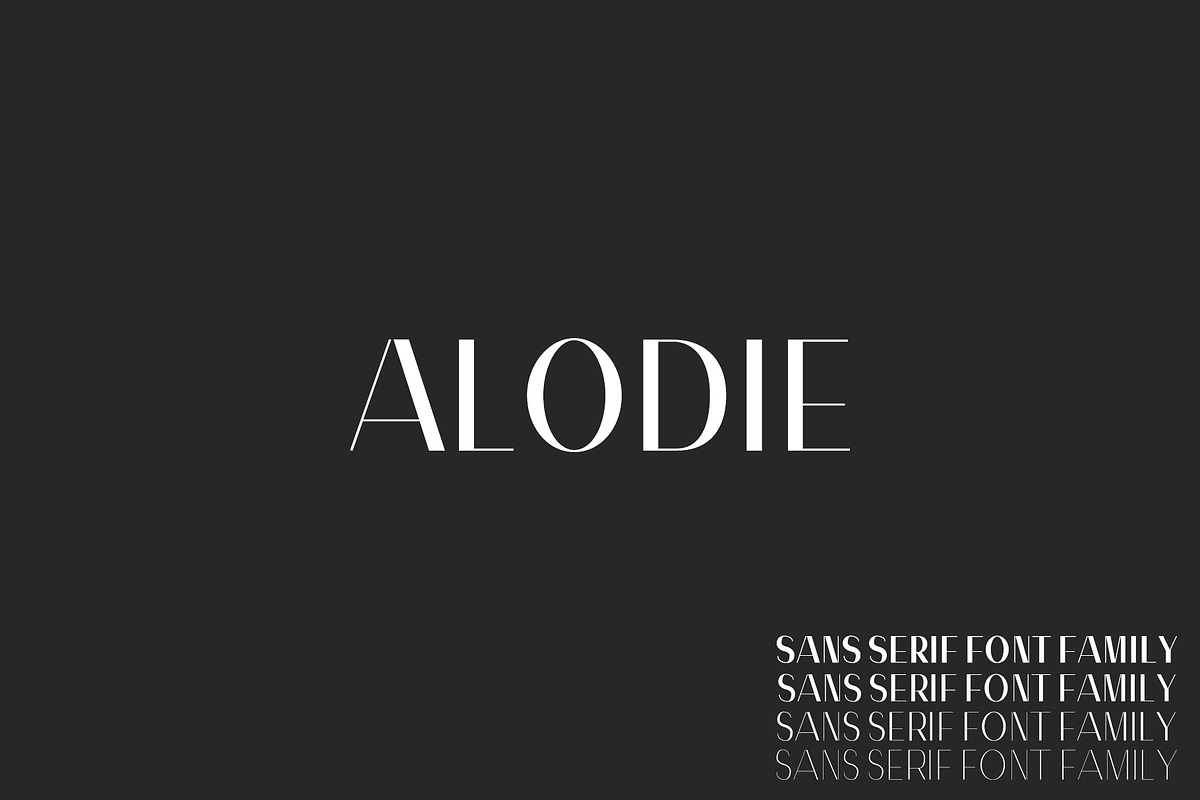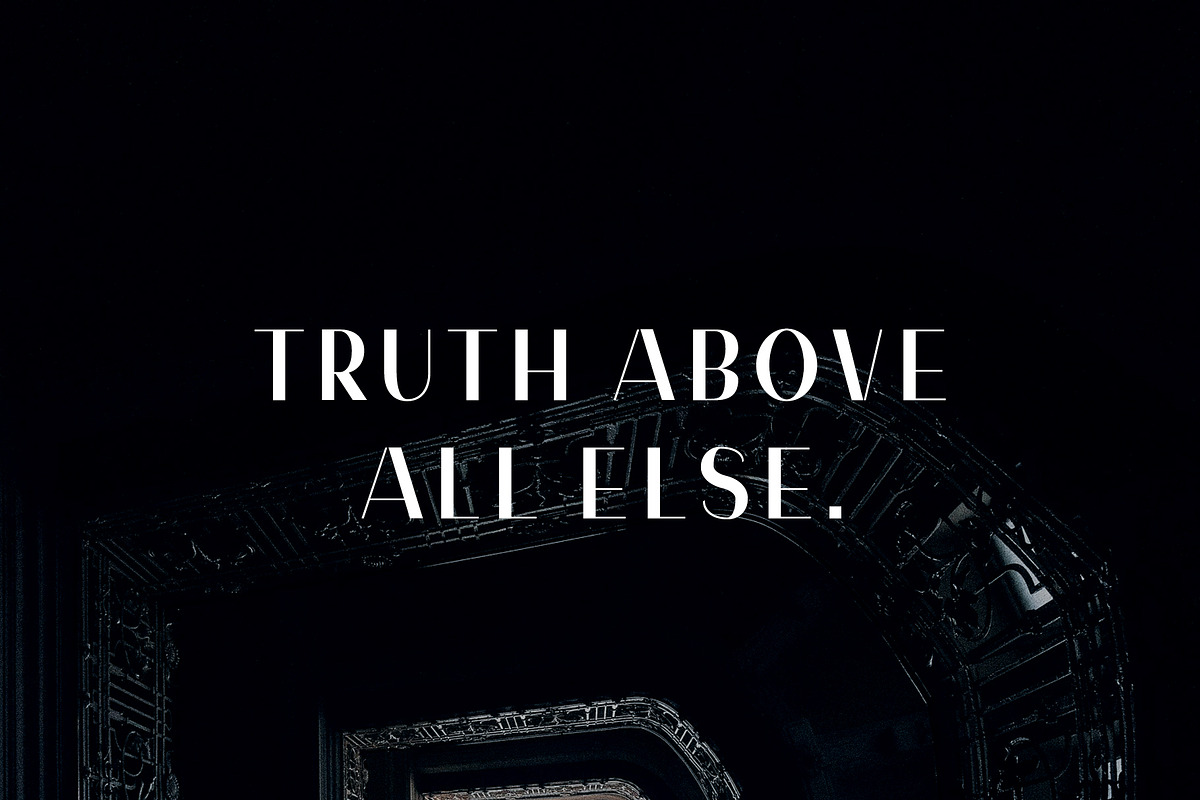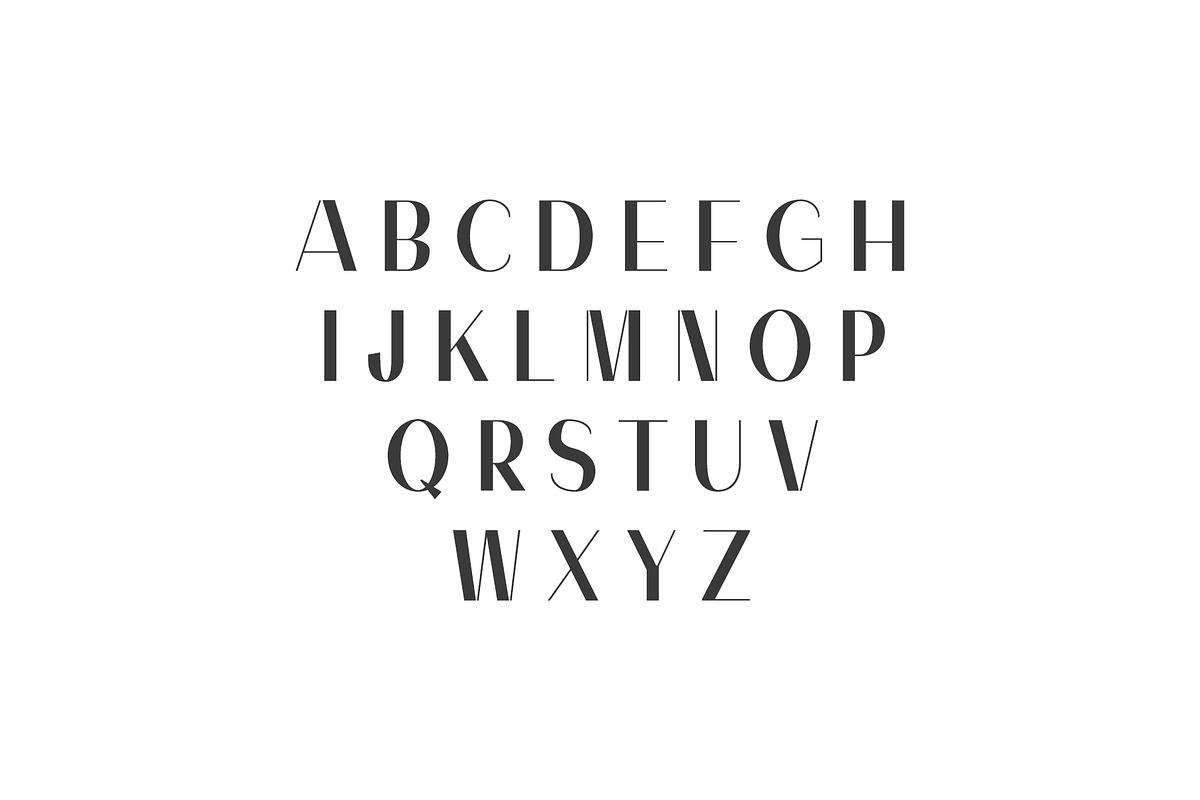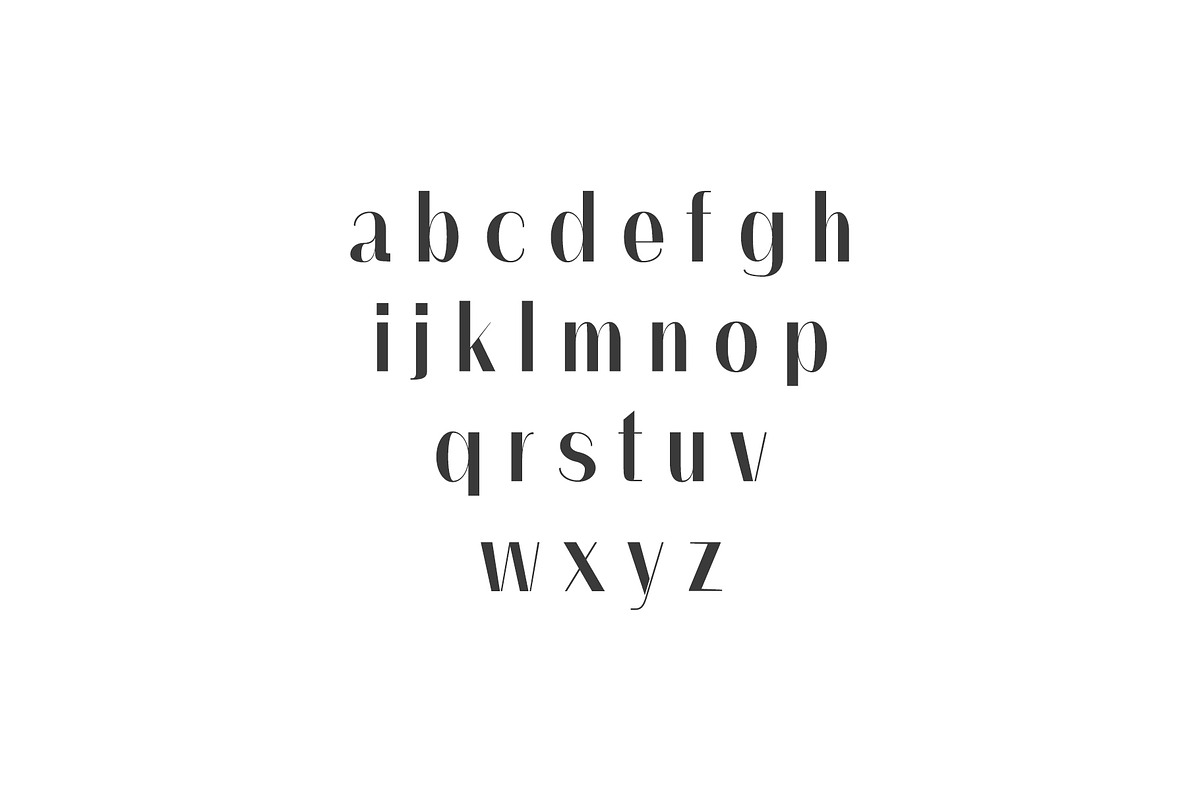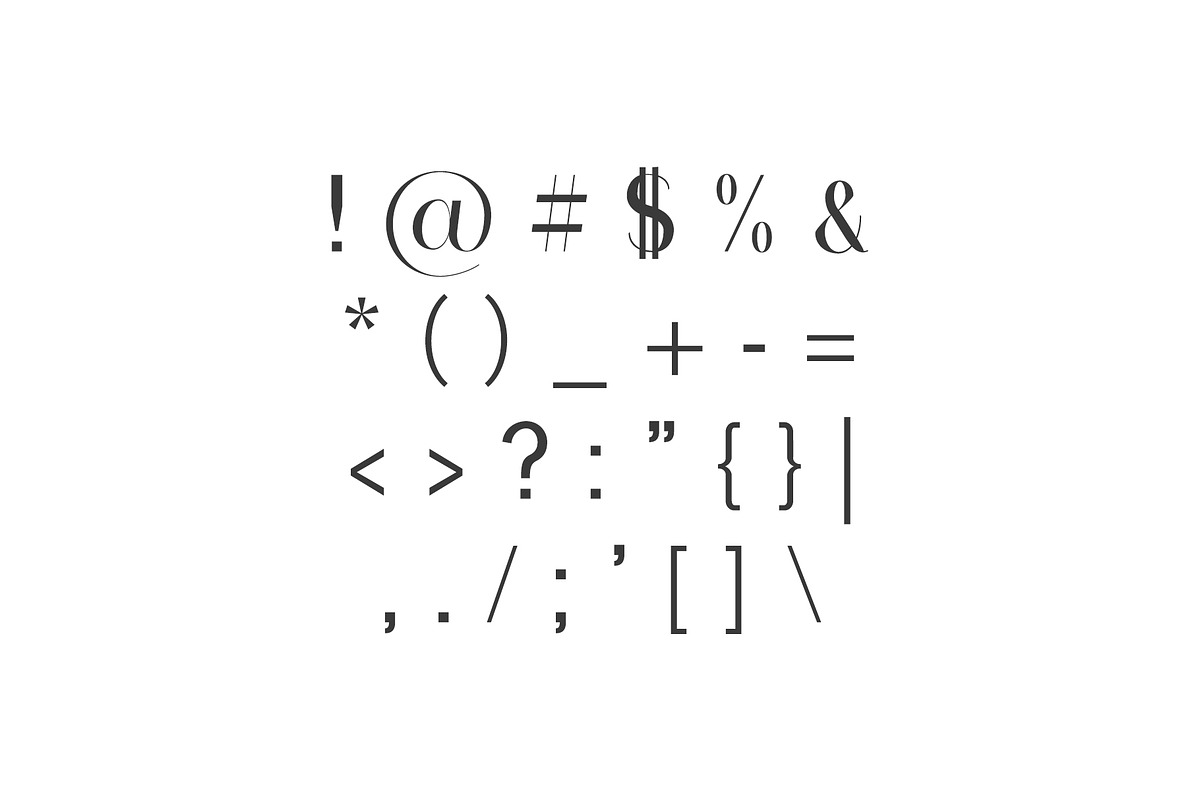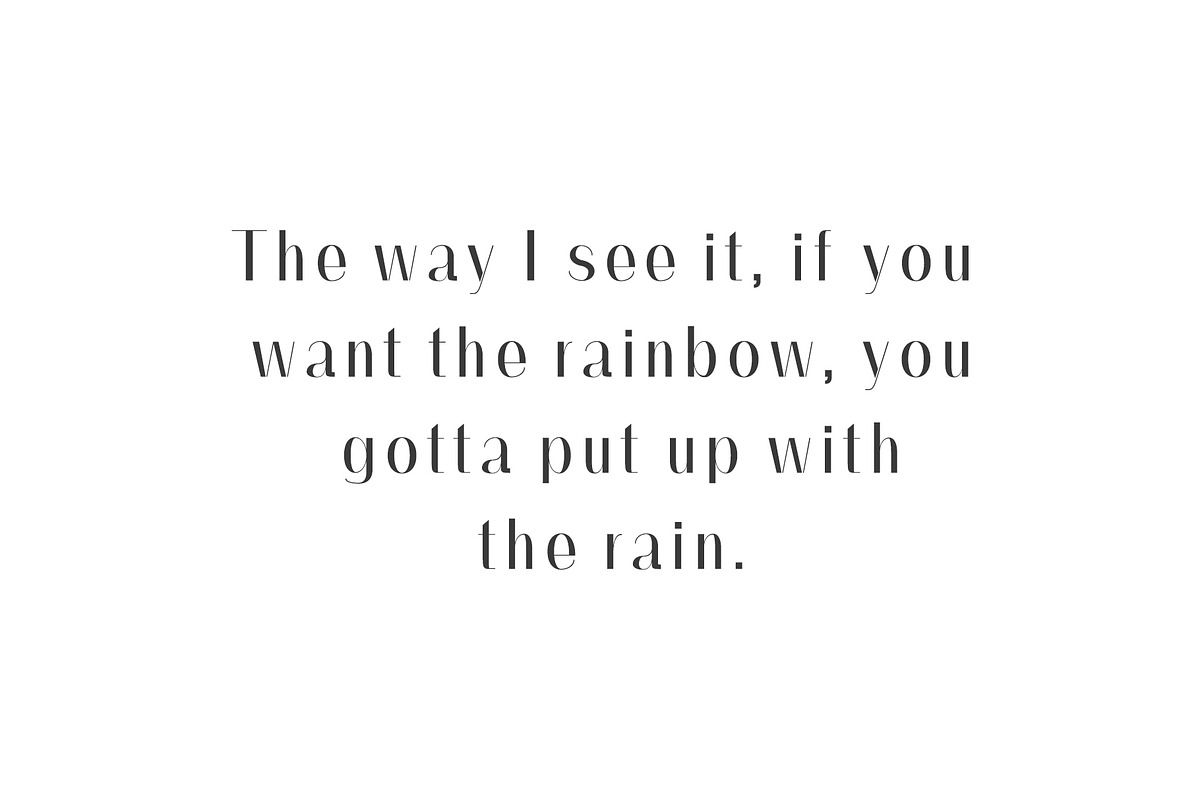
Alodie Sans Serif Font Family Pack
Alodie is a minimal sans serif font, which contains 4 weights and It features unique and modern sans serif look and feel. Perfect for gorgeous logos, titles, web layouts and branding. It looks gorgeous in all caps with a wide-set spacing if you want to try a classy look, or beautiful on its own in capital and lowercase letters for something completely timeless.
Font Weight: Regular, Thin, Light and Bold